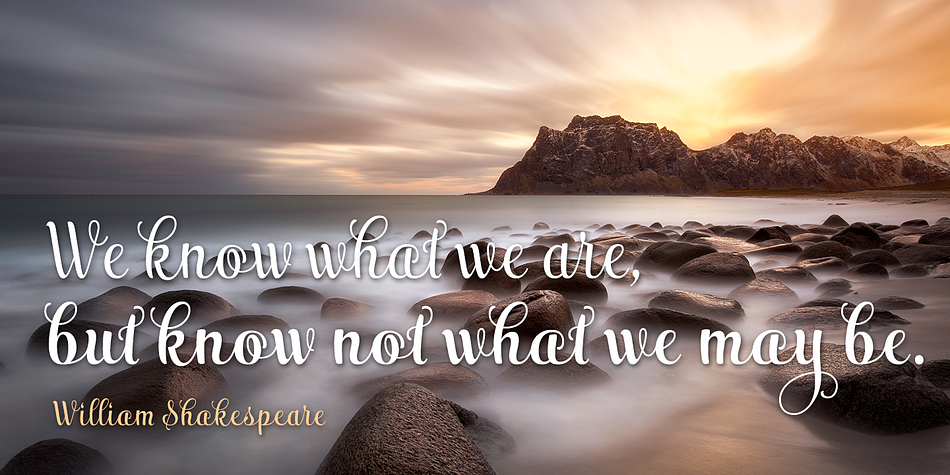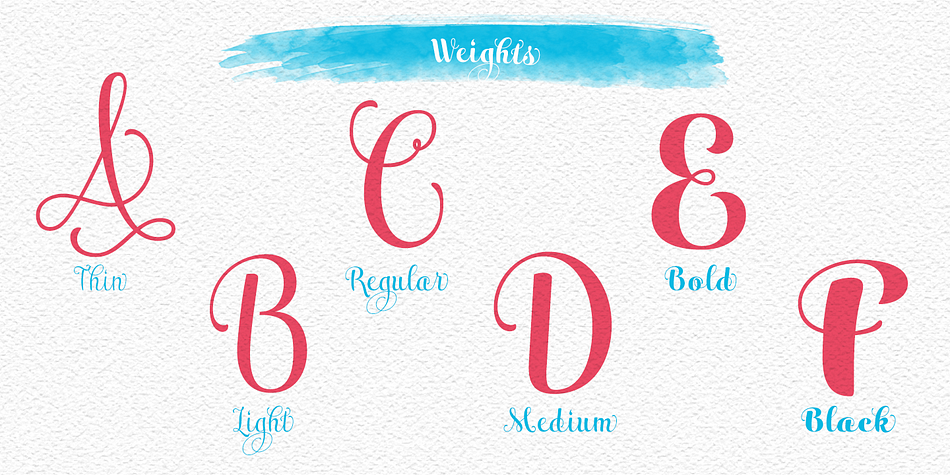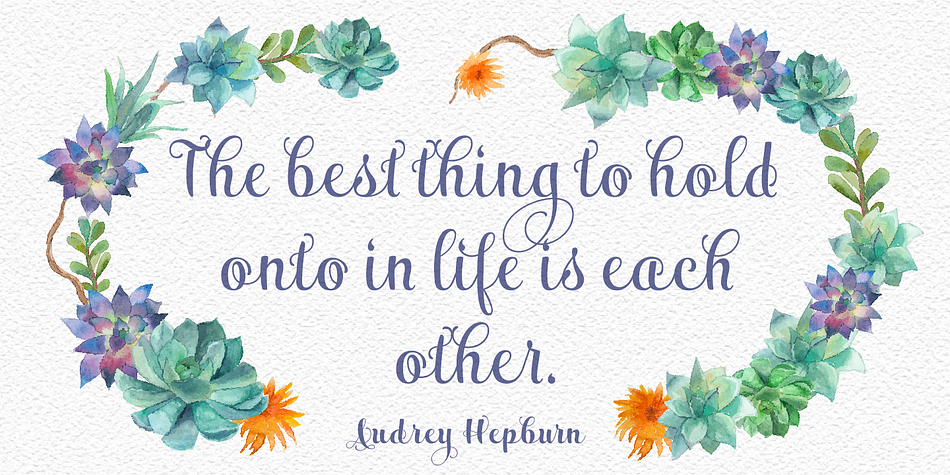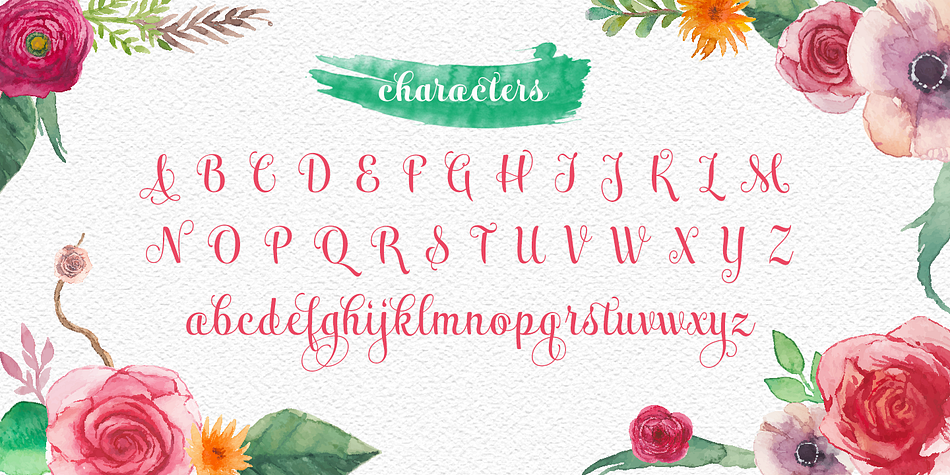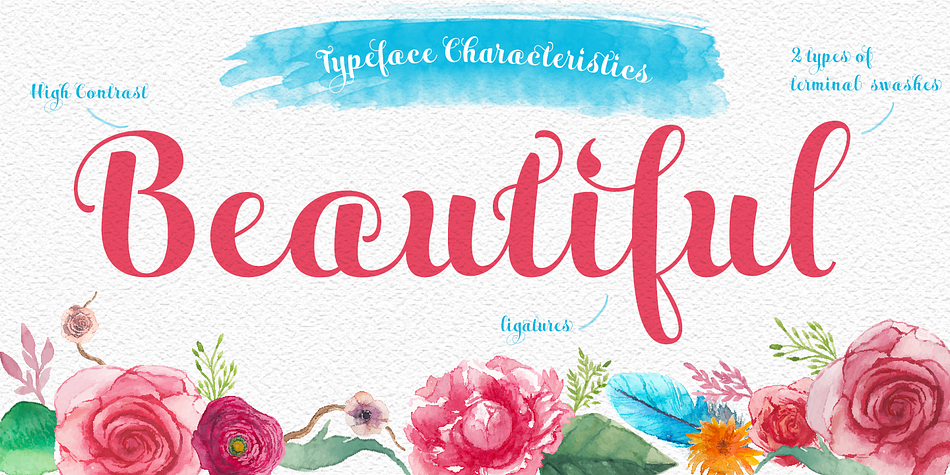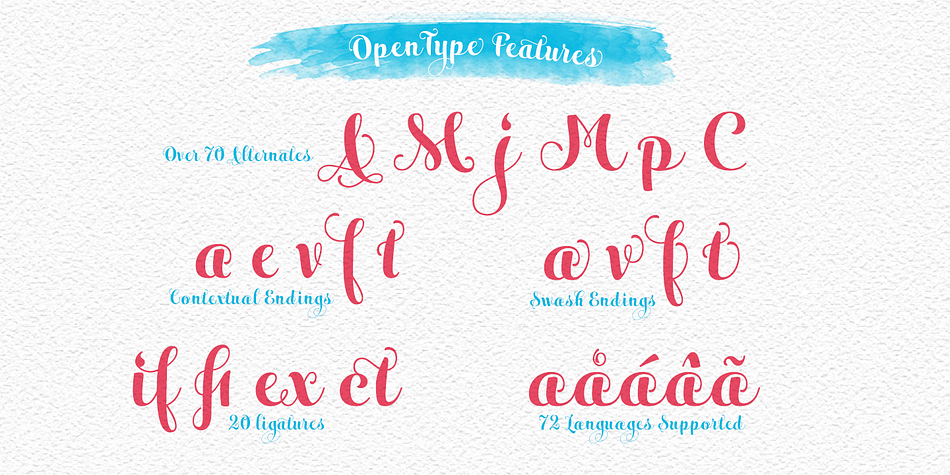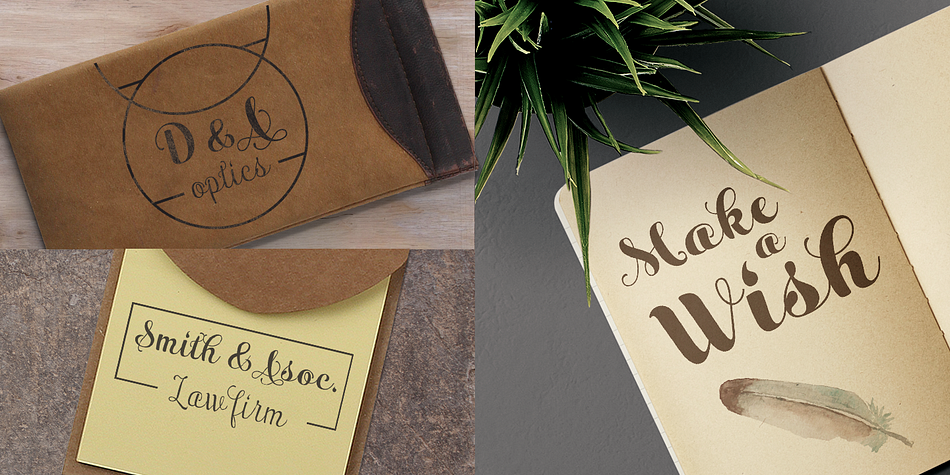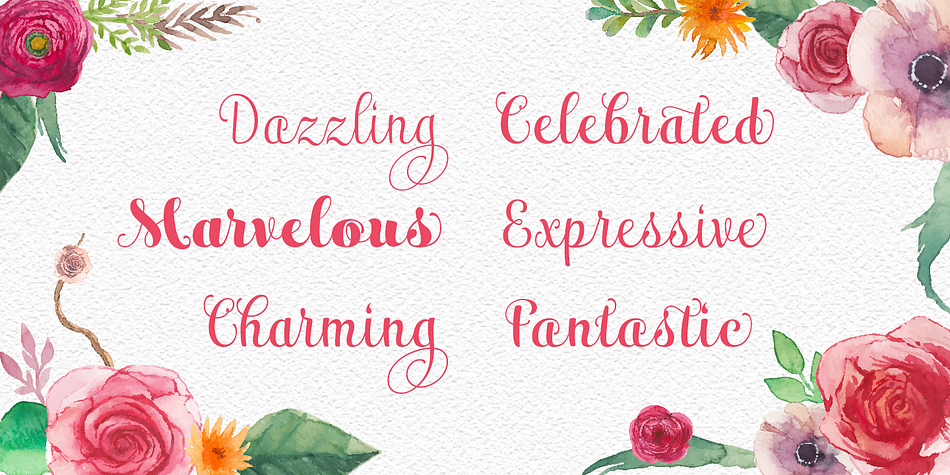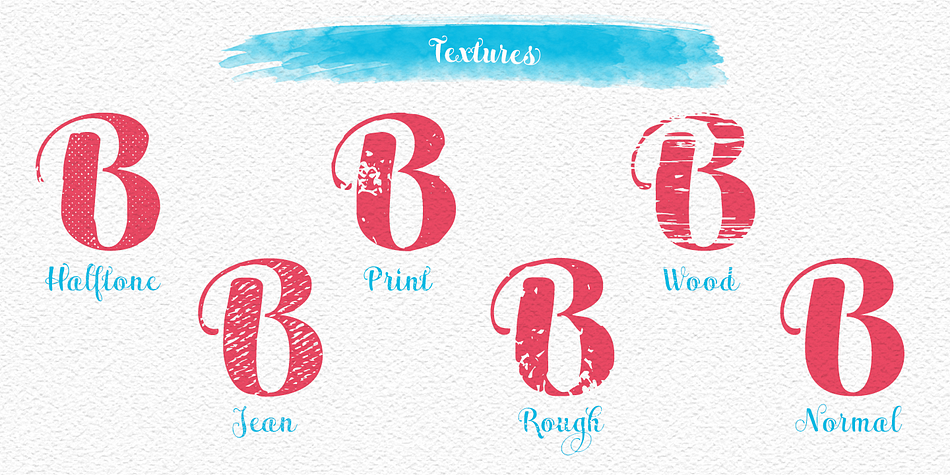
Designed by Jeremy Dooley, Maris is a modern calligraphy font family. This typeface has thirty-six styles and was published by Insigne Design.
Maris is a rich, elegant script, subtly characterized by a whimsical handwritten calligraphy. The family is composed of six different weights, each one bolder than the last but all equally as filling. The lighter weights move delicately through each line, showing a gentle strength in their smaller frame. The six weights from these lighter forms to the bold include some textured versions such as jean, wood, print, rough and halftones.
The Maris family performs superbly in custom headlines and logotypes. Turn on Swash, Stylistic or Contextual Alternates for even greater emphasis. Opentype lets you ìauto-magicallyî swap out letter sets with alternate versions and creates the visual diversity that gives you the one-of-a-kind look of custom lettering. It also uses OpenType features to assist with letter flow. When you choose to make use of its open-type decorative glyphs, your headlines will dazzle.
Style | Modern Calligraphy |
Designer | Jeremy Dooley |